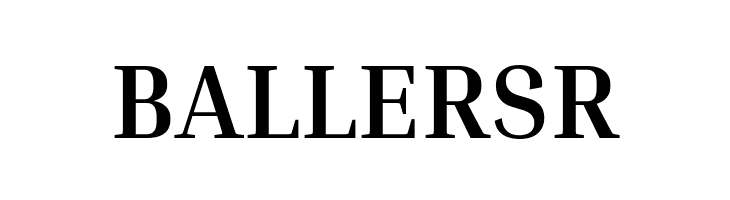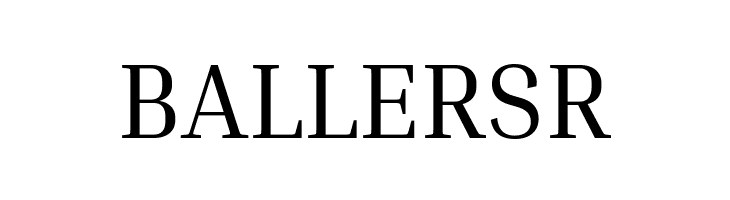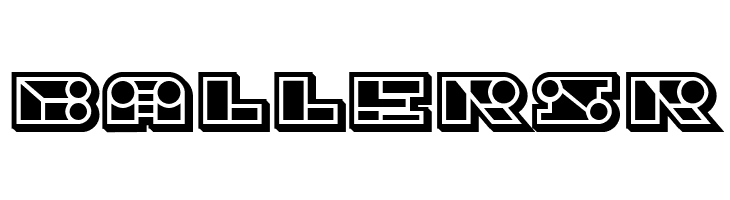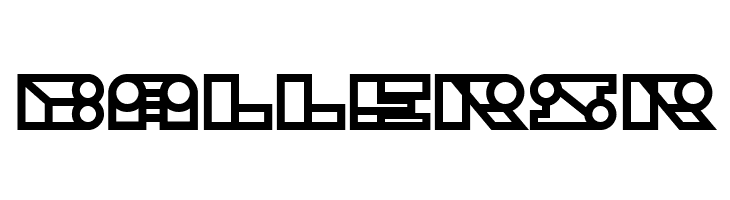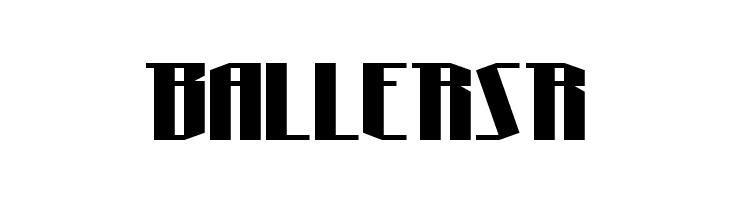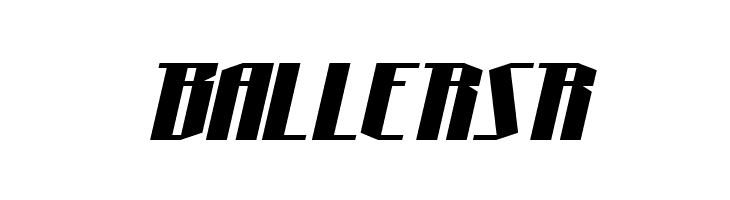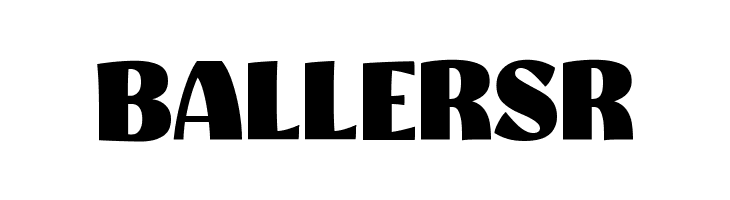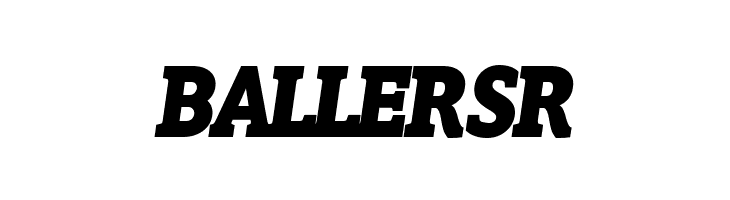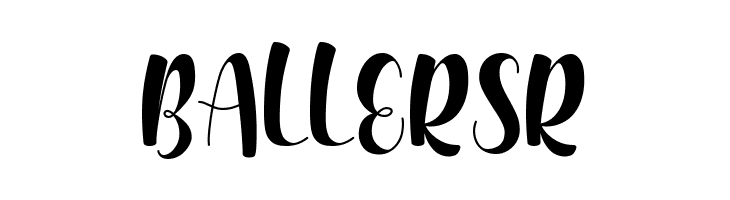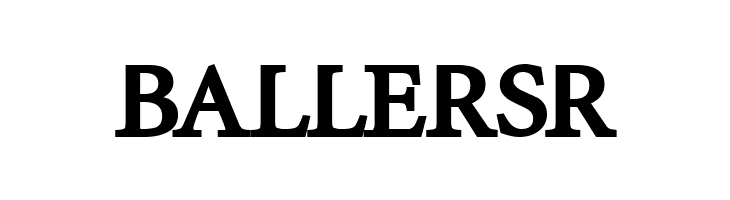
A bold, italic font with a dynamic and modern style.
• HTheNomad-Black
A bold, decorative font with gothic influences and intricate details.
• Hugwa Black
A bold, expressive script font with flowing, cursive letterforms.
• Hussar Bold Wide
A bold, wide font with strong, thick strokes for a modern look.
• Hussar Bold Wide Oblique Four
A bold, wide, and oblique font with a modern and dynamic style.
• Hussar Nova Black
• Hussar Nova Black Italic
• Hussar Pisanka Black
A bold, playful font with rounded edges and a hand-drawn look.
• Hussar Pisanka Black Kursywa
A bold, playful, and slightly cursive font with a handwritten feel.
• Hussar Woodtype Black
• Hussar Woodtype Black Oblique
• Hydronaut Wide
A bold, wide, and angular font with a futuristic and geometric style.
• Hydronaut Wide Italic
A bold, wide, and italicized font with a futuristic and dynamic style.
• Hyper-Demo Black
A bold, heavy font with wide, commanding strokes and a playful curvature.
• I am Hueca
A bold, outlined font with a modern and impactful style.
• Imbecile Hollow Black
A bold, geometric font with hollow interiors and a modern, industrial style.
• Imbecile Ornamental Filled Black
A bold, ornamental font with geometric patterns and intricate details.
• Individigital Black
A bold, futuristic font with sharp, angular edges and a digital aesthetic.
• Industrial Voltage
Distressed, bold display font with an industrial, rugged style.
• InfraRed Black
A bold, high-contrast serif font with angular serifs and a modern flair.
• Inknut Antiqua Black
A bold, high-contrast serif font with a classic and authoritative style.
• Inria Sans
A modern, geometric sans-serif font with balanced proportions.
• Inria Sans Bold
A bold, modern sans-serif font with excellent readability and versatility.